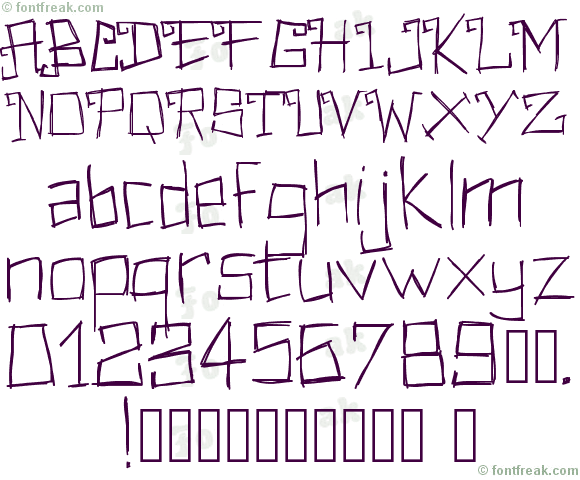
PWRectangular
PWRectangular by Peax Webdesign is a distinctive display font that captures attention with its unique design and playful character. This font features a sans-serif style characterized by its geometric shapes and slightly irregular outlines, giving it a hand-drawn feel that adds personality to any project. The stroke weight is consistent throughout, with minimal contrast, allowing for easy readability while maintaining a whimsical aesthetic. The spacing between the letters is generous, which enhances legibility and contributes to its approachable vibe.
The PWRectangular font is particularly well-suited for various creative applications. Its playful nature makes it an excellent choice for children's book covers, where it can engage young readers with its fun and casual appearance. Additionally, it works wonderfully for branding small businesses, especially in the creative sector, such as cafés, boutiques, or art studios, where a friendly and inviting look is essential. The font can also be utilized effectively in social media graphics, adding a personal touch to posts and stories that aim to connect with audiences on a more relatable level. Whether used in invitations for casual events or on promotional materials for workshops, PWRectangular brings a sense of warmth and creativity.
What sets PWRectangular apart is its blend of simplicity and charm, making it a standout choice for those seeking to inject personality into their designs. Its playful yet structured design ensures that it is both functional and visually appealing, making it a must-have in any designer's font library.